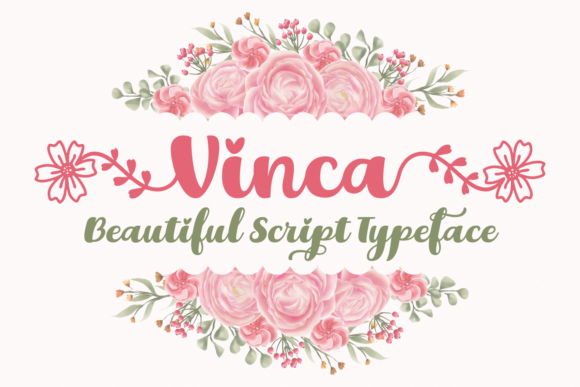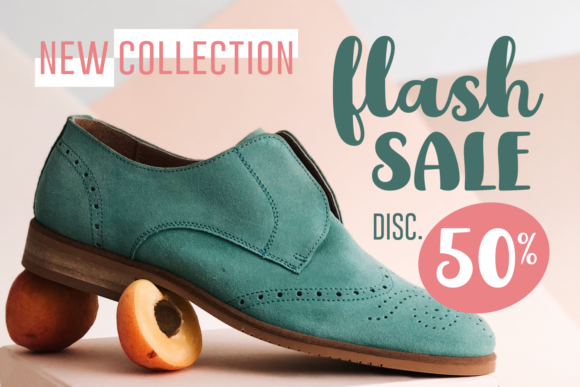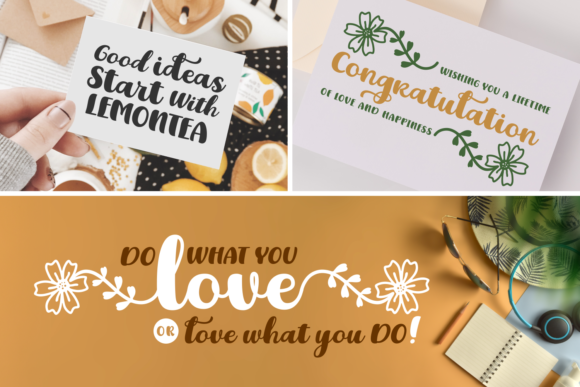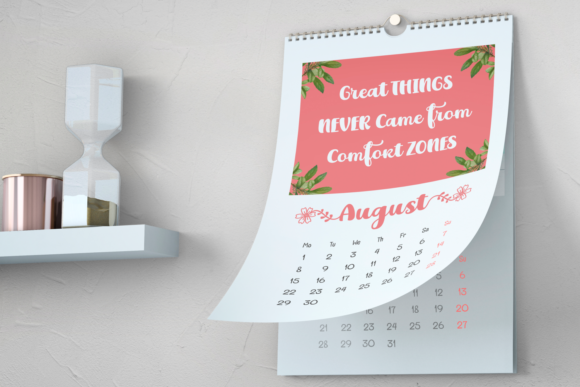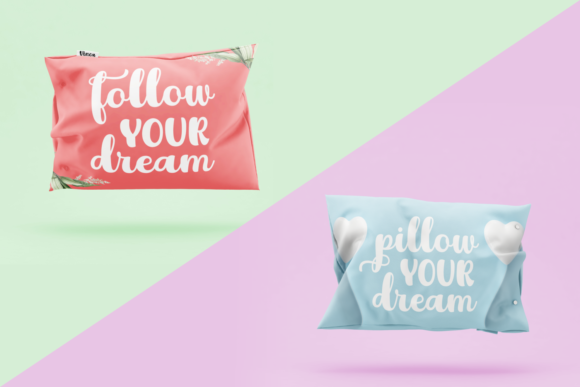
Vinca Font
About Vinca Font
Vinca is a stunningly romantic and delicate handwritten font with a stylish twist. Use it to add a bold feel to any design project.